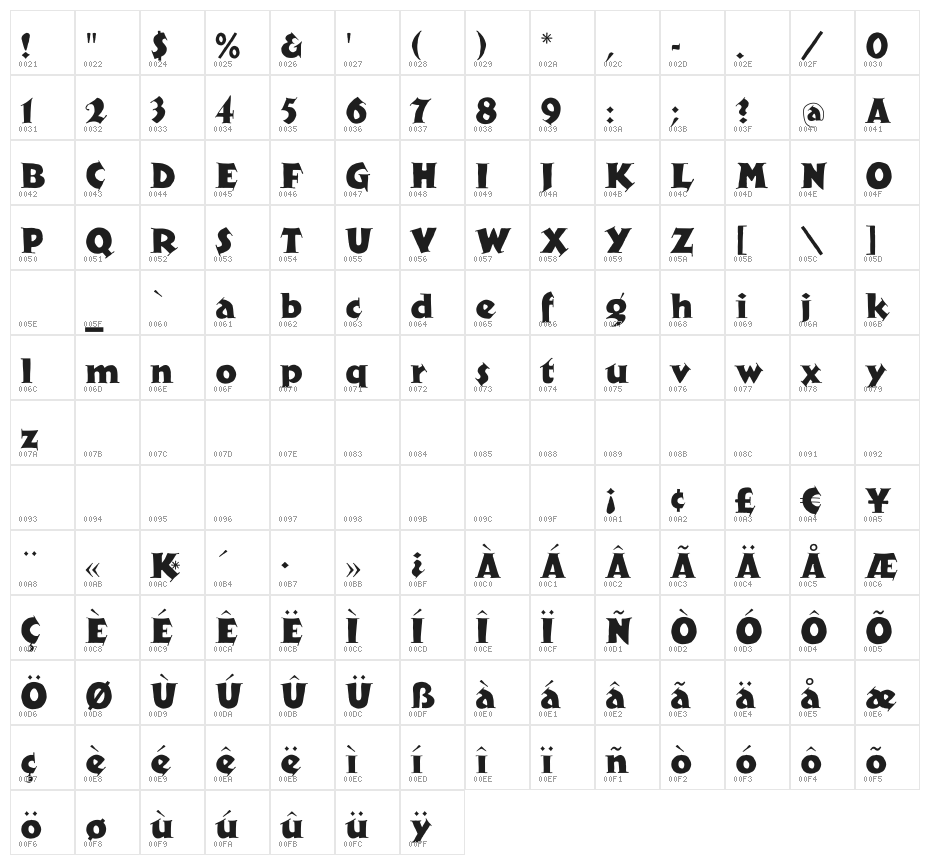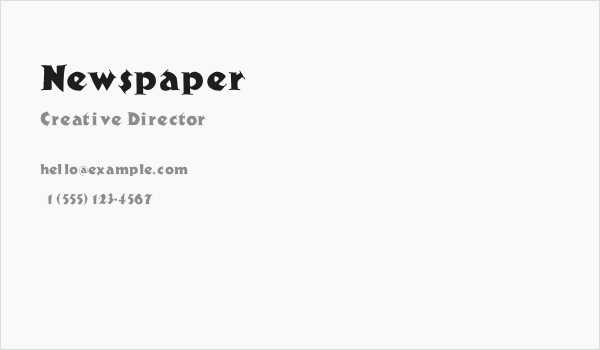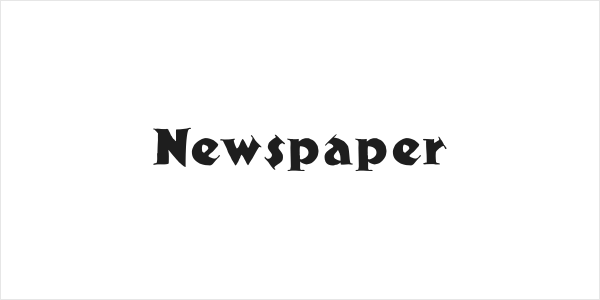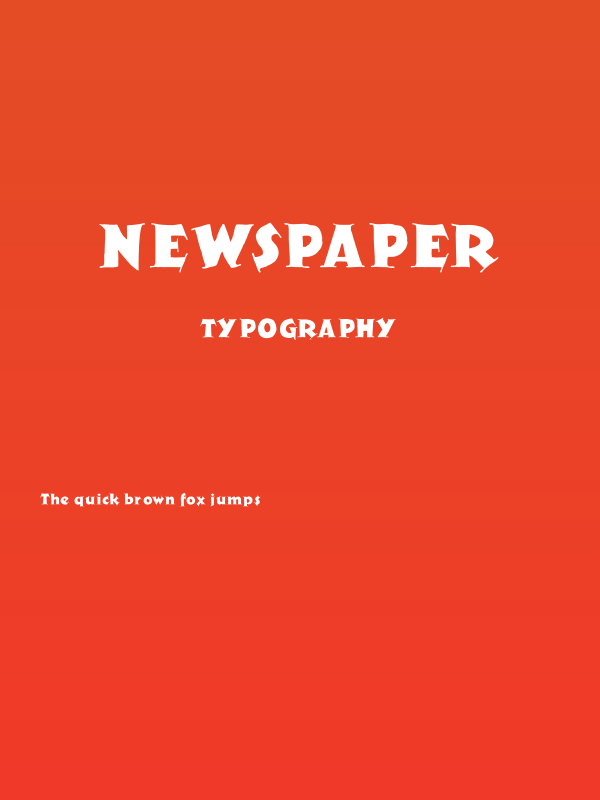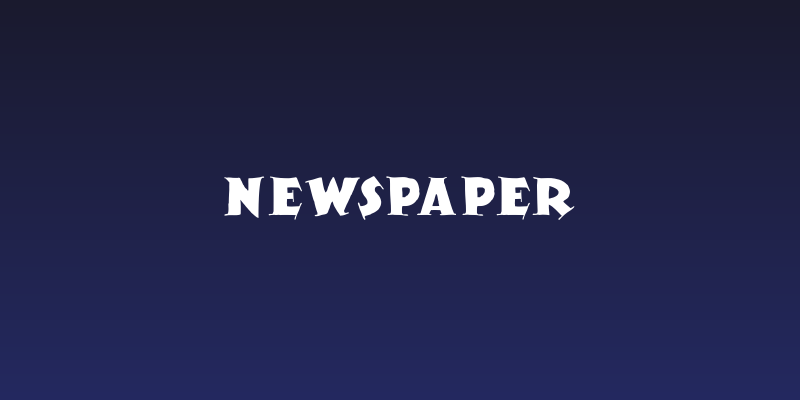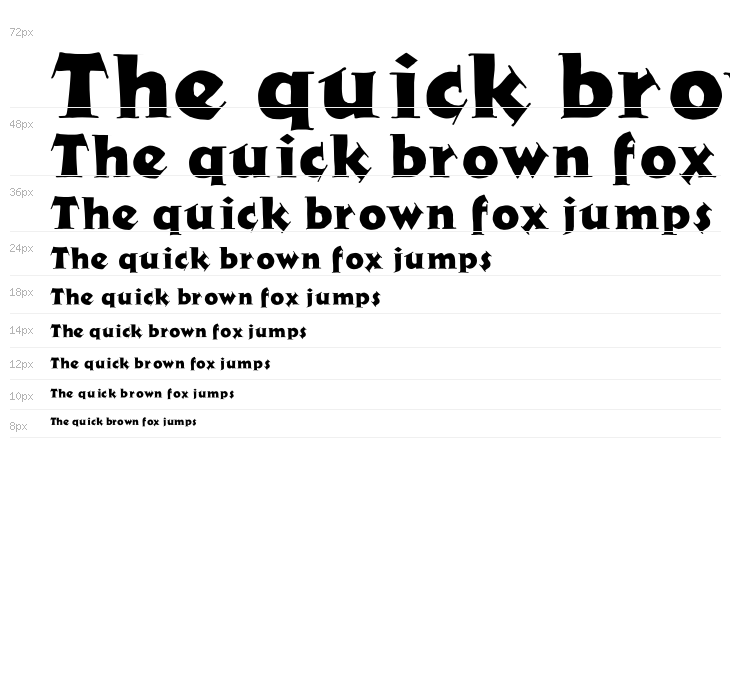
Newspaper Font
Newspaper Description
This font features a bold and dramatic style with sharp, angular edges and a strong presence. The uppercase letters are particularly striking, with exaggerated serifs and a slightly medieval or gothic flair. The lowercase letters maintain the same boldness, ensuring consistency throughout the typeface. Numbers and special characters are equally bold, with unique shapes that add to the overall distinctive appearance. The font's design is reminiscent of traditional newspaper headlines, conveying a sense of urgency and importance.
| Overall Style | Gothic, Decorative |
| Use Case | Headlines, Posters, Book Covers |
| Proposed Projects | Ideal for newspaper headlines, posters, book covers, or any project requiring a bold, attention-grabbing typeface. |